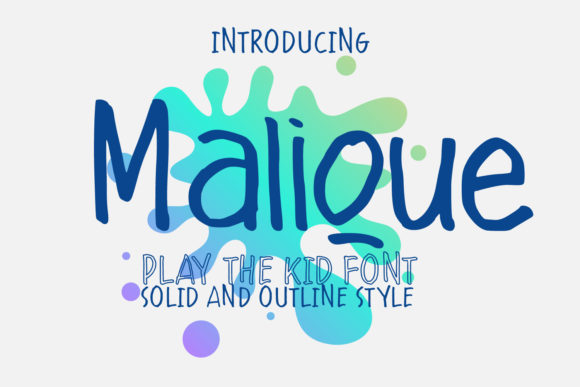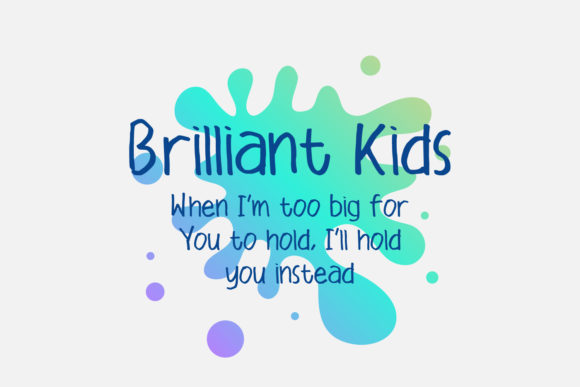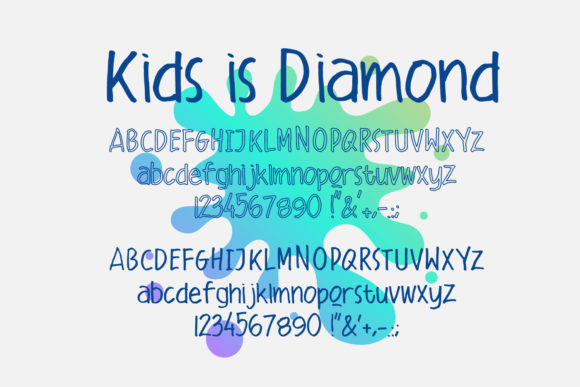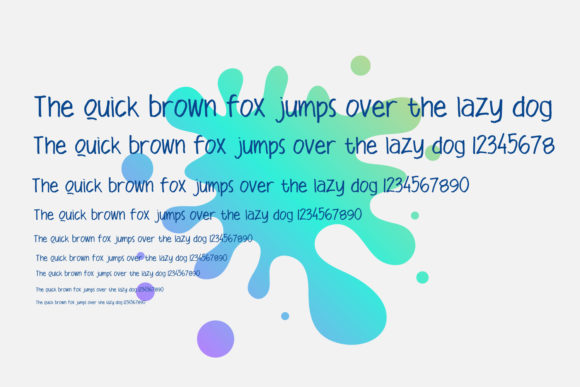
HomeScript FontsMalique Font Script Fonts Malique Font FacebookXPinterestWhatsApp Malique Font Poster 2 Malique Font Poster 3 Malique Font Poster 4 About Malique Font Malique is a kid-friendly and sweet handwritten font with a touch of elegance. Fall in love with its unique charm! DOWNLOAD ON CREATIVE FABRICAThis font is sold and delivered by Creative Fabrica. Font Canyon may earn a commission if you buy through this link. People also explored Shine More Font Maliska Font Ragtime Mossa Font Christmas Font Recollet Font Maia Font Cocopath Font Christmas Party Font Sparkling Christmas Font 333 0 TagsMalique Font Previous articleEstonia FontNext articleChuttime Font LEAVE A REPLY Cancel reply Comment: Please enter your comment! Name:* Please enter your name here Email:* You have entered an incorrect email address! Please enter your email address here Website: Save my name, email, and website in this browser for the next time I comment. Personal Use Free Samureix Personal Use Free Read more about this font Covelia Personal Use Free Read more about this font 1980 Portable Personal Use Free Read more about this font Bally Girl Personal Use Free Read more about this font BLOG The 10 Best Handwriting Fonts to Add Personality to Your Designs 10 of the Best Handwriting Fonts for Adding Personality to Your Designs There will undoubtedly be no other better choice than handwriting fonts to give... Free vs Paid Fonts: Why Investing in Premium Fonts Is Worth It Modern Sans-Serif Fonts That Brands Love in 2025 Free Fonts Risk: Why Free Fonts Can Be Dangerous for Designers